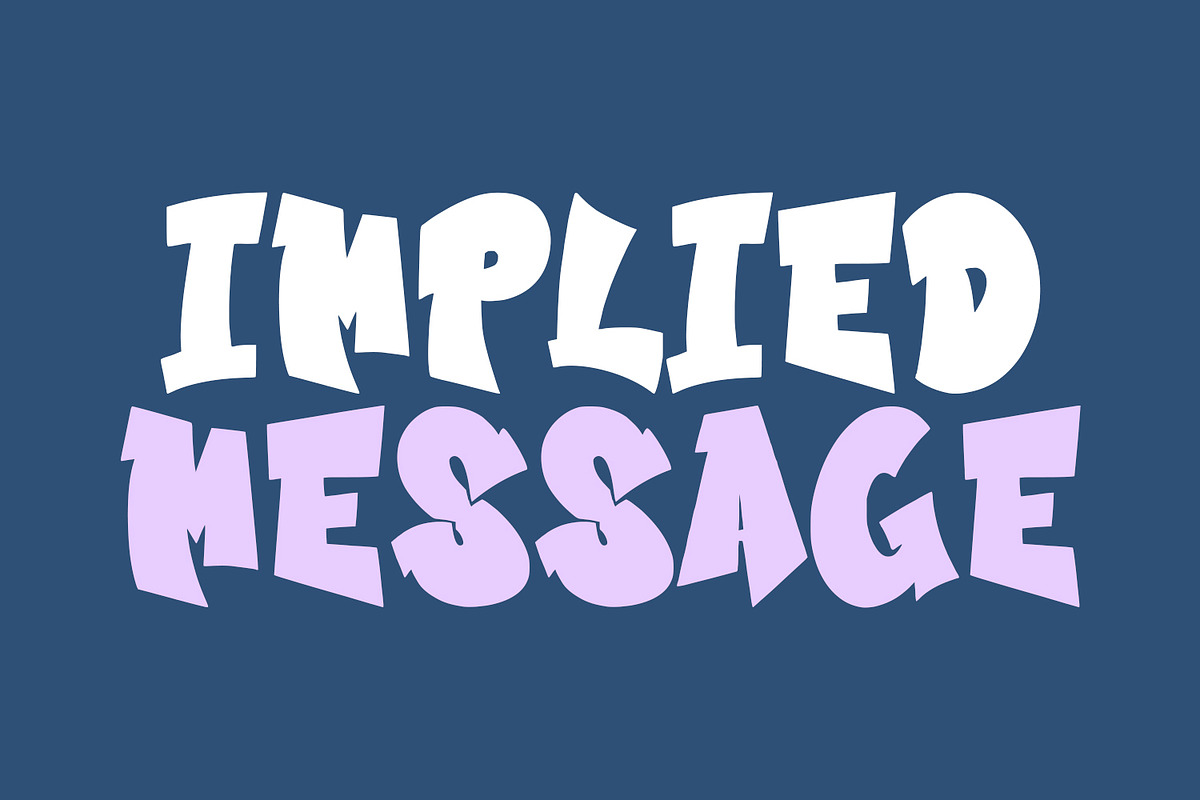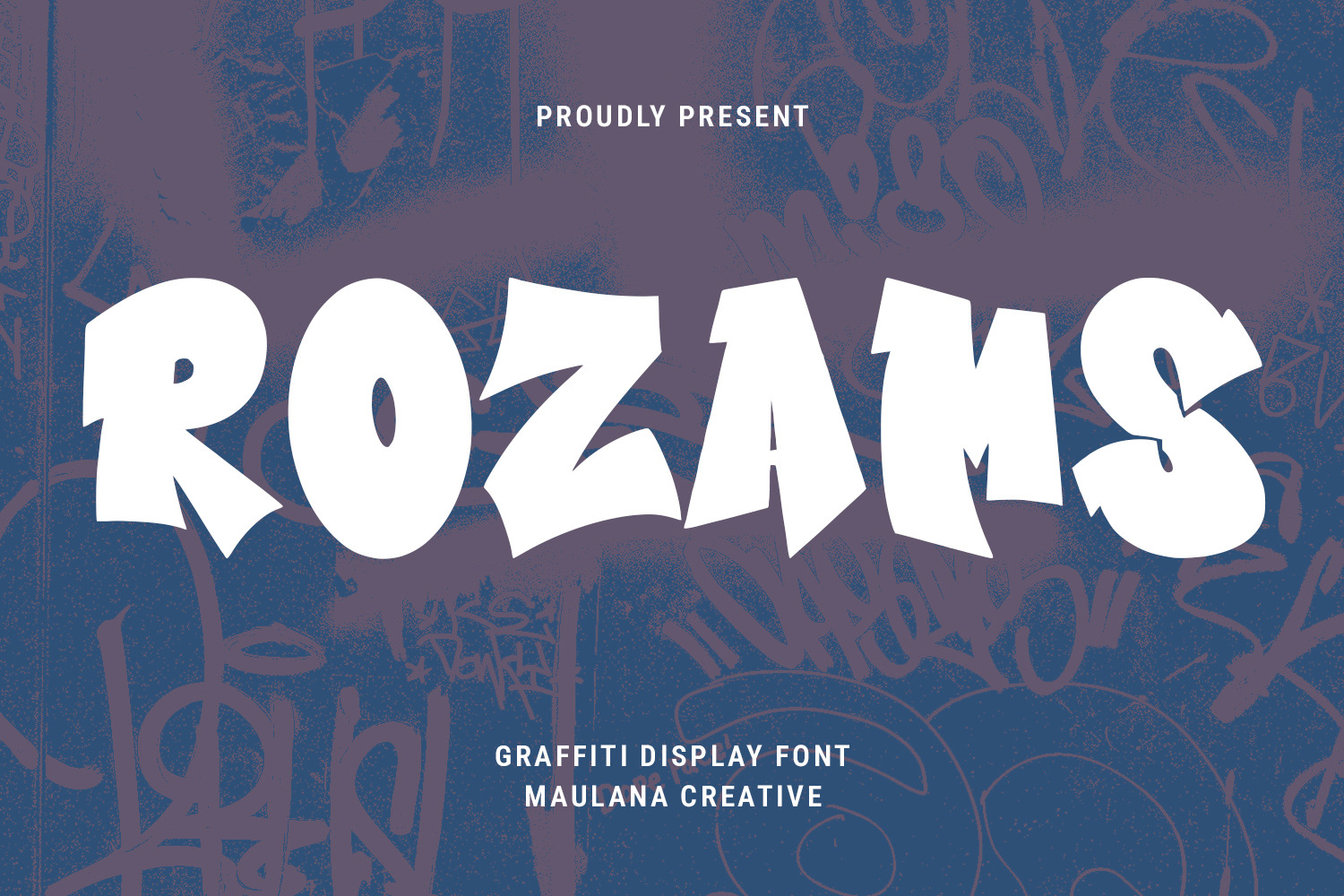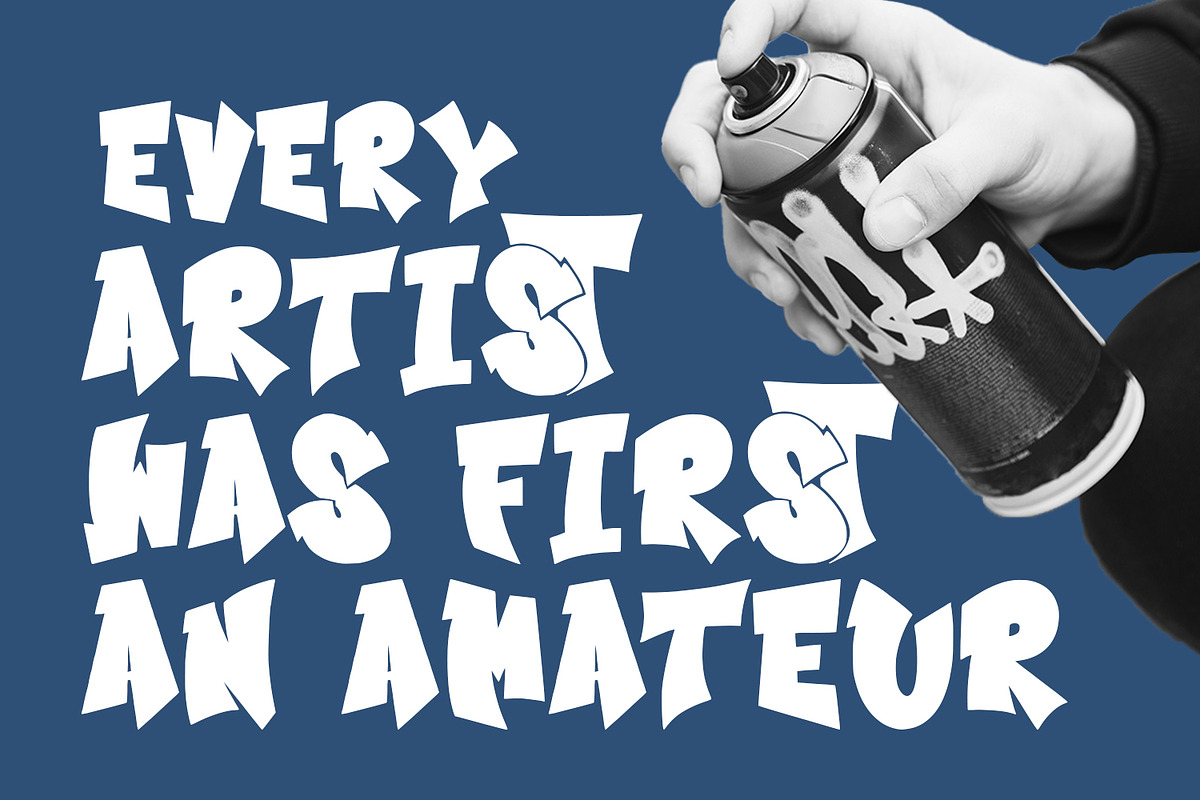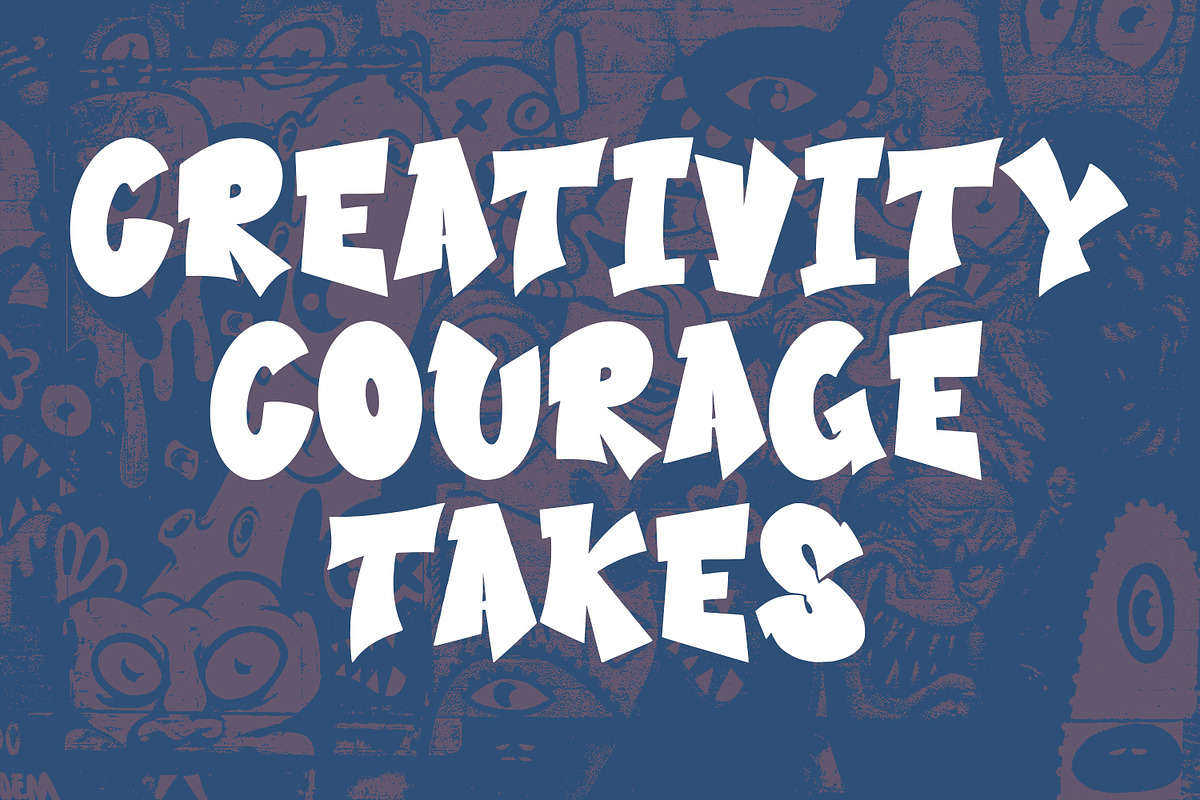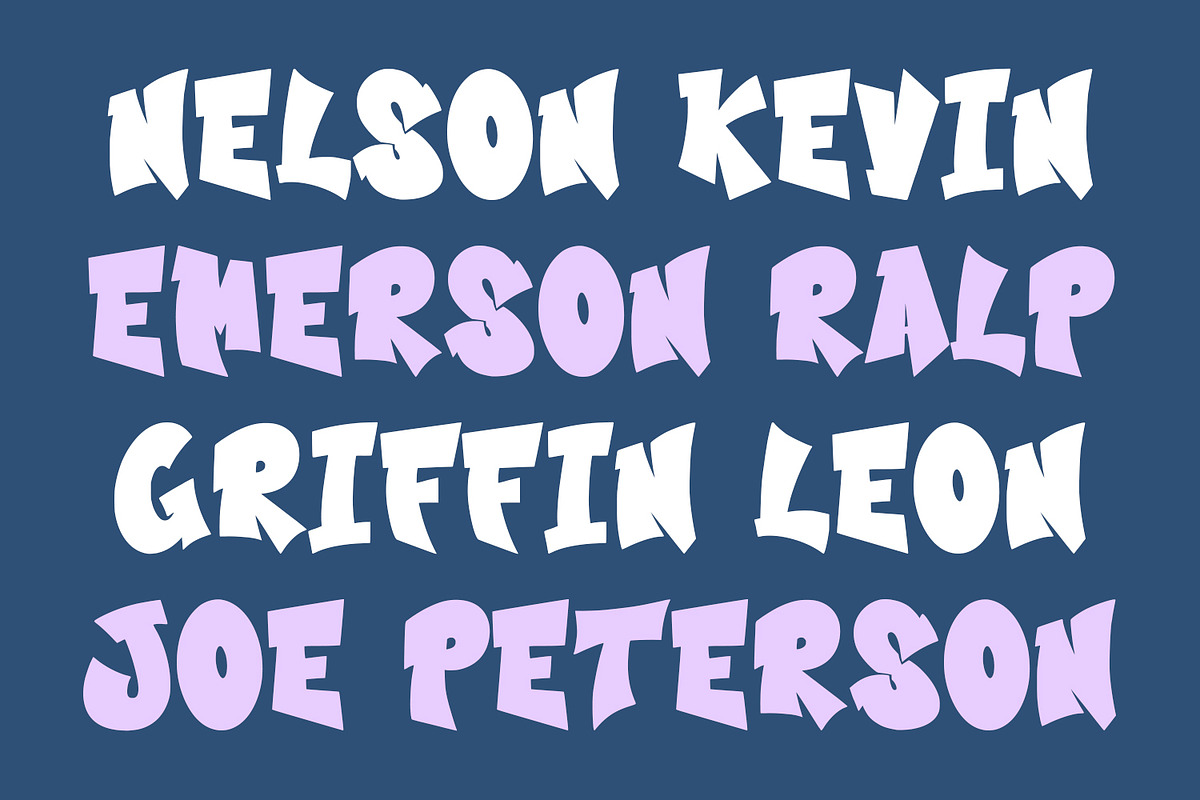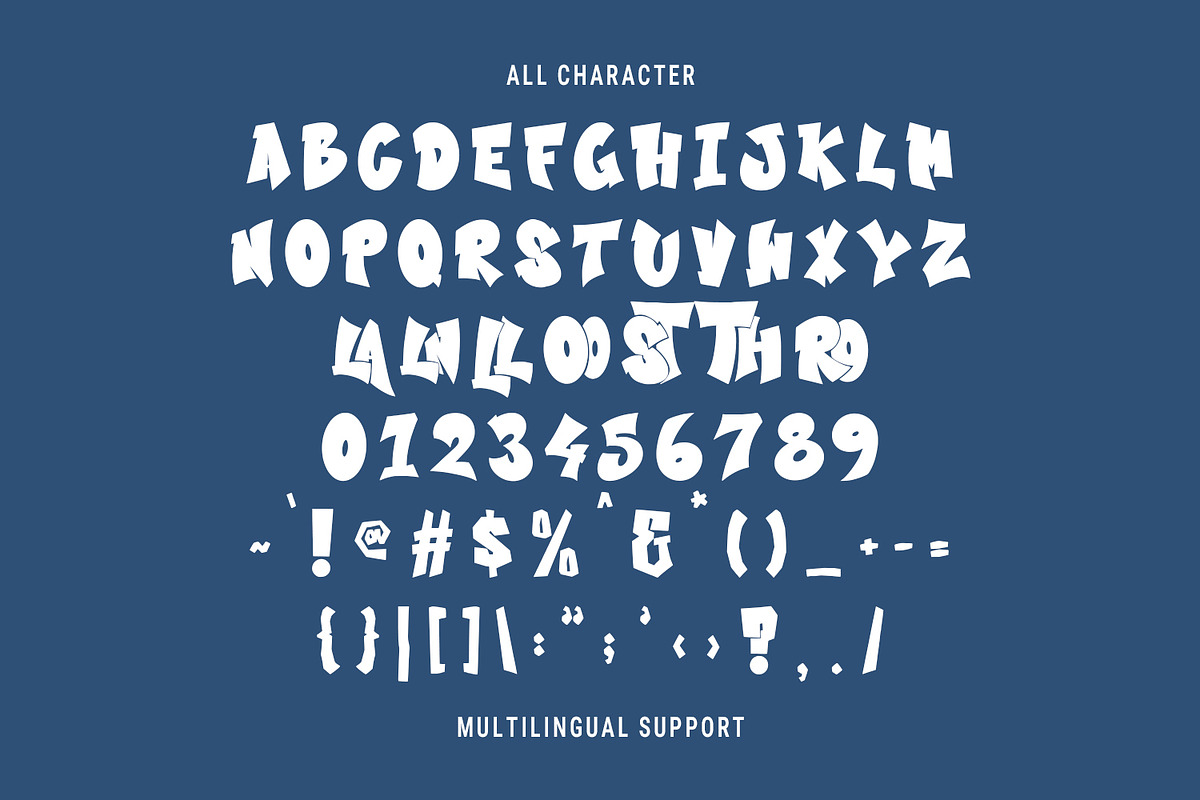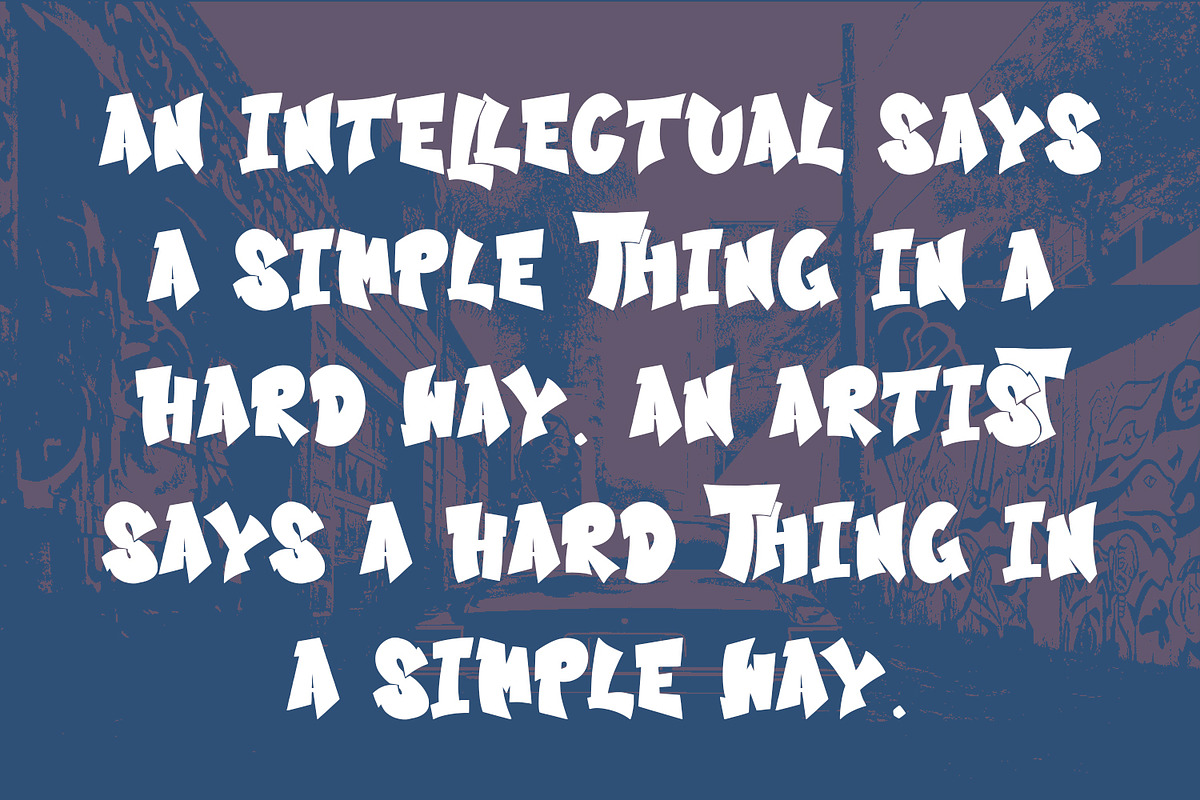
Rozams Graffiti Display Font
Rozams is a playful graffiti display font. Bold stroke, fun character with a bit of ligatures. To give you an extra creative work. Rozams font support multilingual more than 100+ language. This font is good for logo design, Social media, Movie Titles, Books Titles, a short text even a long text letter and good for your secondary text font with script or serif. Make a stunning work with Rozams font.